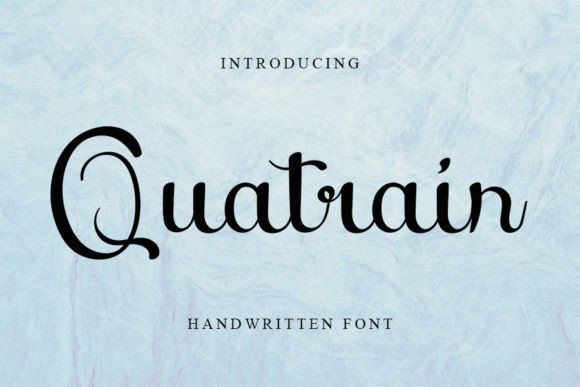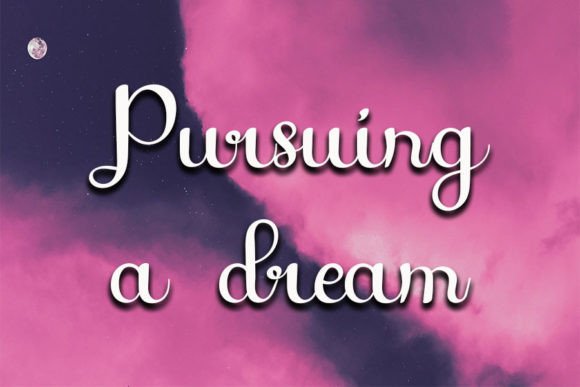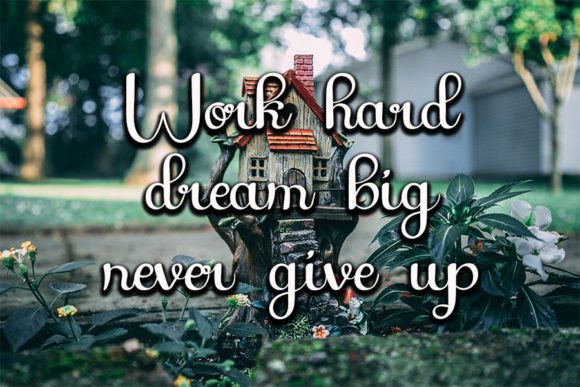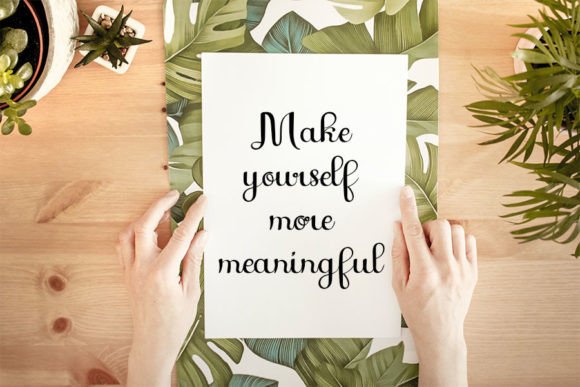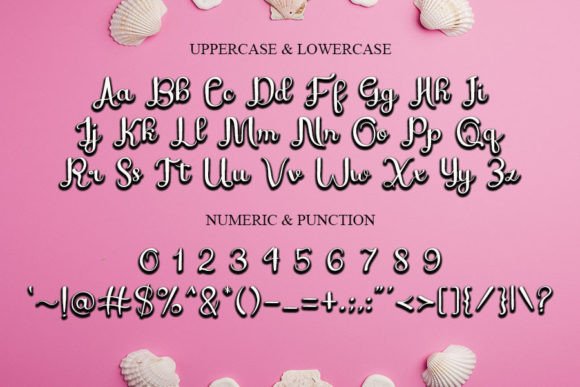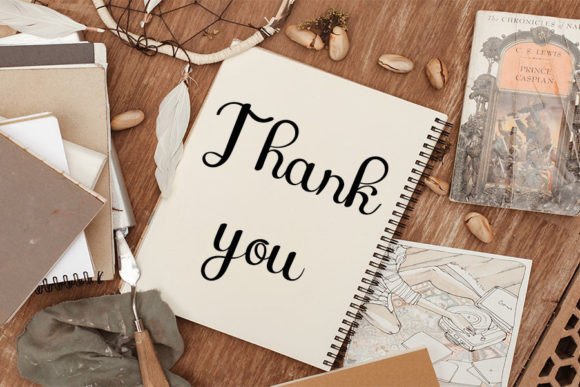
Quatrain Font
About Quatrain Font
Quatrain, a friendly handwritten font, is meticulously crafted to become a beloved favorite. Balancing classic calligraphy influences with a contemporary and fresh feel, this font is a versatile addition to your fonts library, infusing vibrancy into all your creative projects.
The charm of Quatrain lies in its friendly and approachable demeanor. The carefully designed characters retain classic calligraphy elements, creating a timeless appeal while embracing a modern and lively touch. This versatility makes Quatrain suitable for a wide range of applications.
Consider incorporating Quatrain into your creative projects, such as branding, product packaging, invitations, and social media graphics. Its friendly and dynamic nature allows it to adapt seamlessly to various design contexts, adding an approachable and lively feel to your visuals.
Quatrain’s appeal extends to both digital and print materials, making it a flexible choice for different design applications. Whether you’re crafting engaging online content or producing printed materials like invitations and posters, Quatrain stands out as a font that enhances the overall aesthetic.
In essence, Quatrain is more than just a font; it’s a design asset that brings a friendly and contemporary touch to your projects. Embrace the charm of Quatrain, and let it breathe life into all your creative endeavors with a perfect blend of classic elegance and modern freshness.